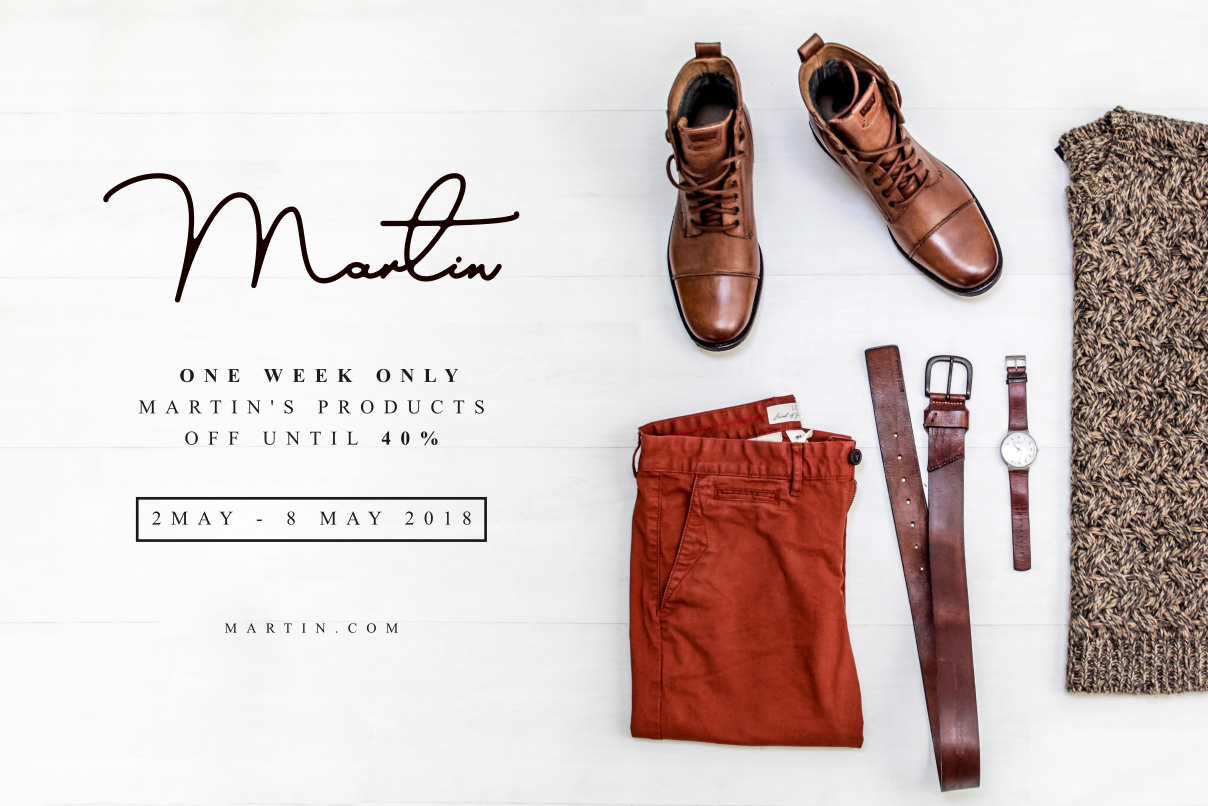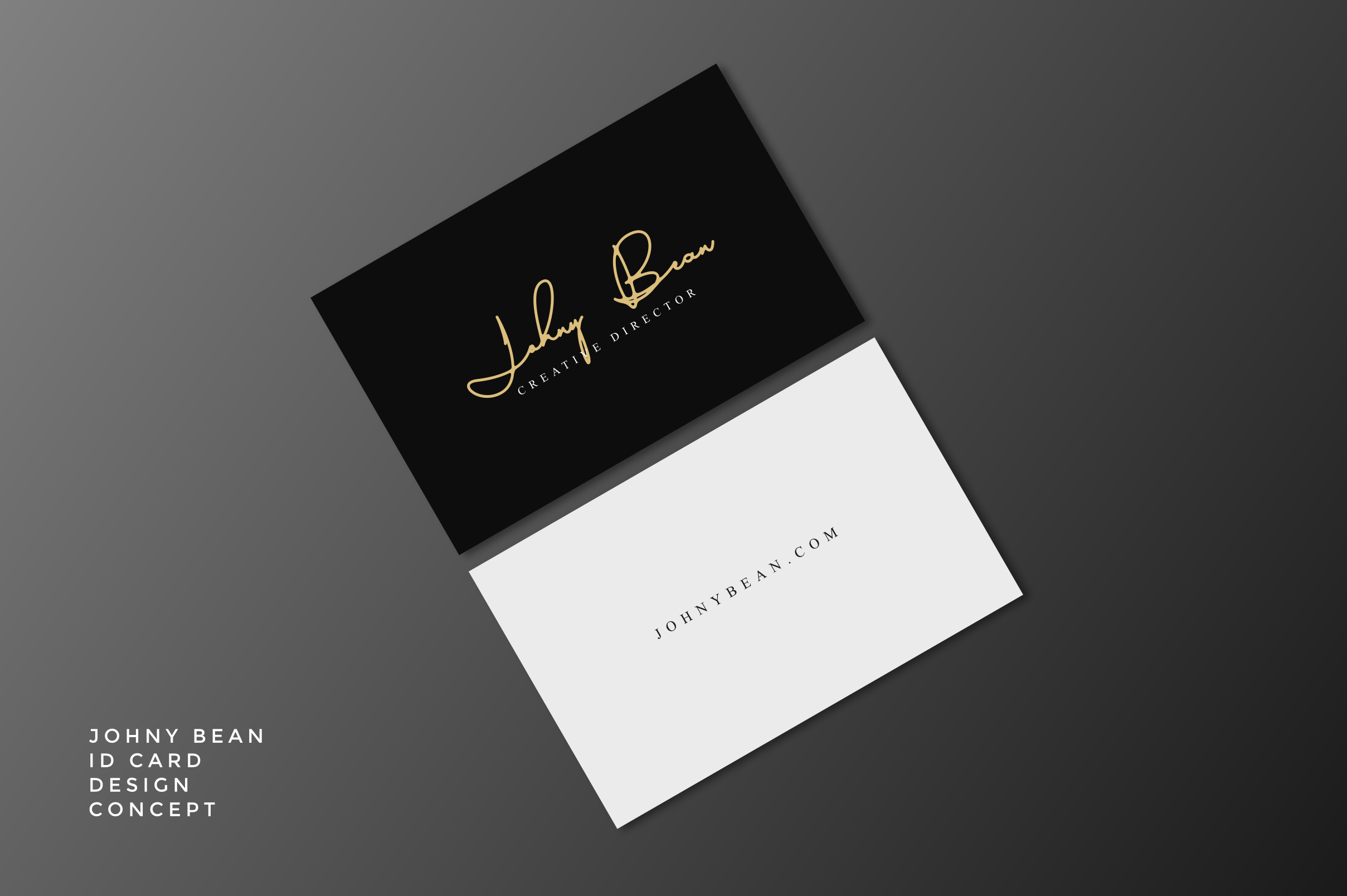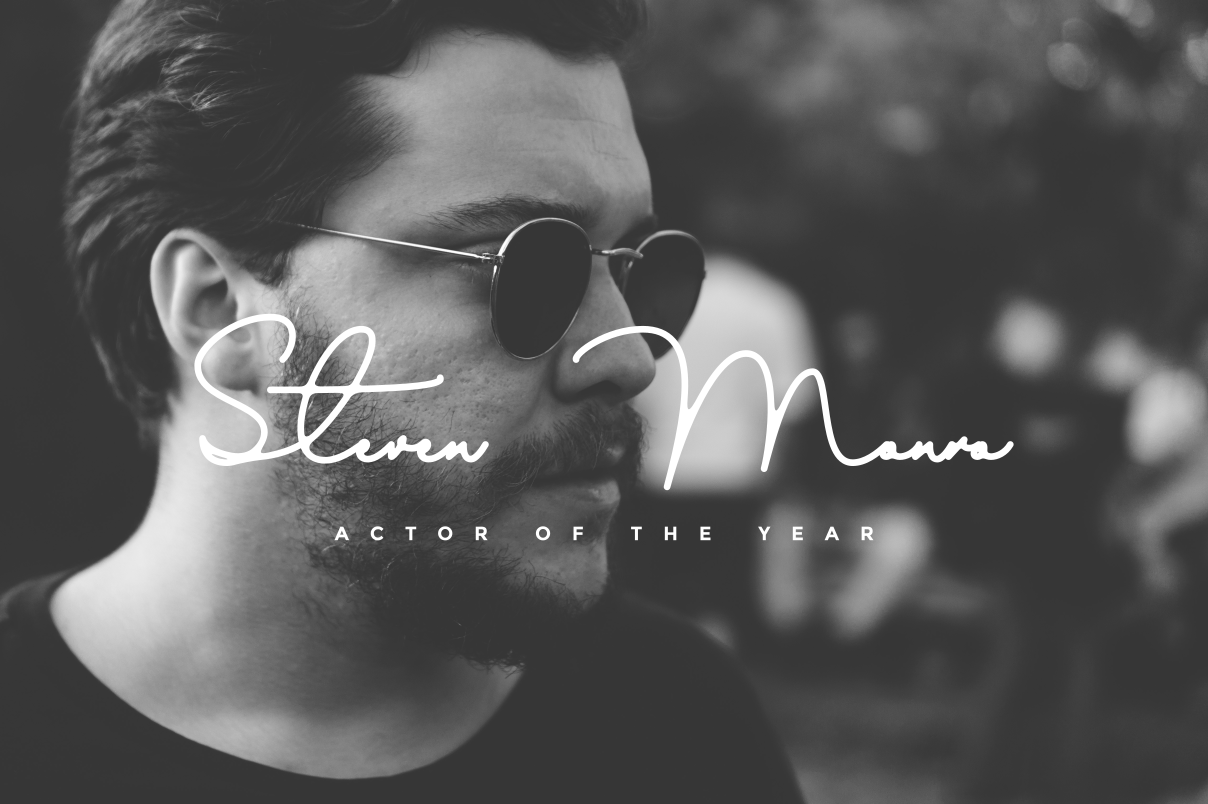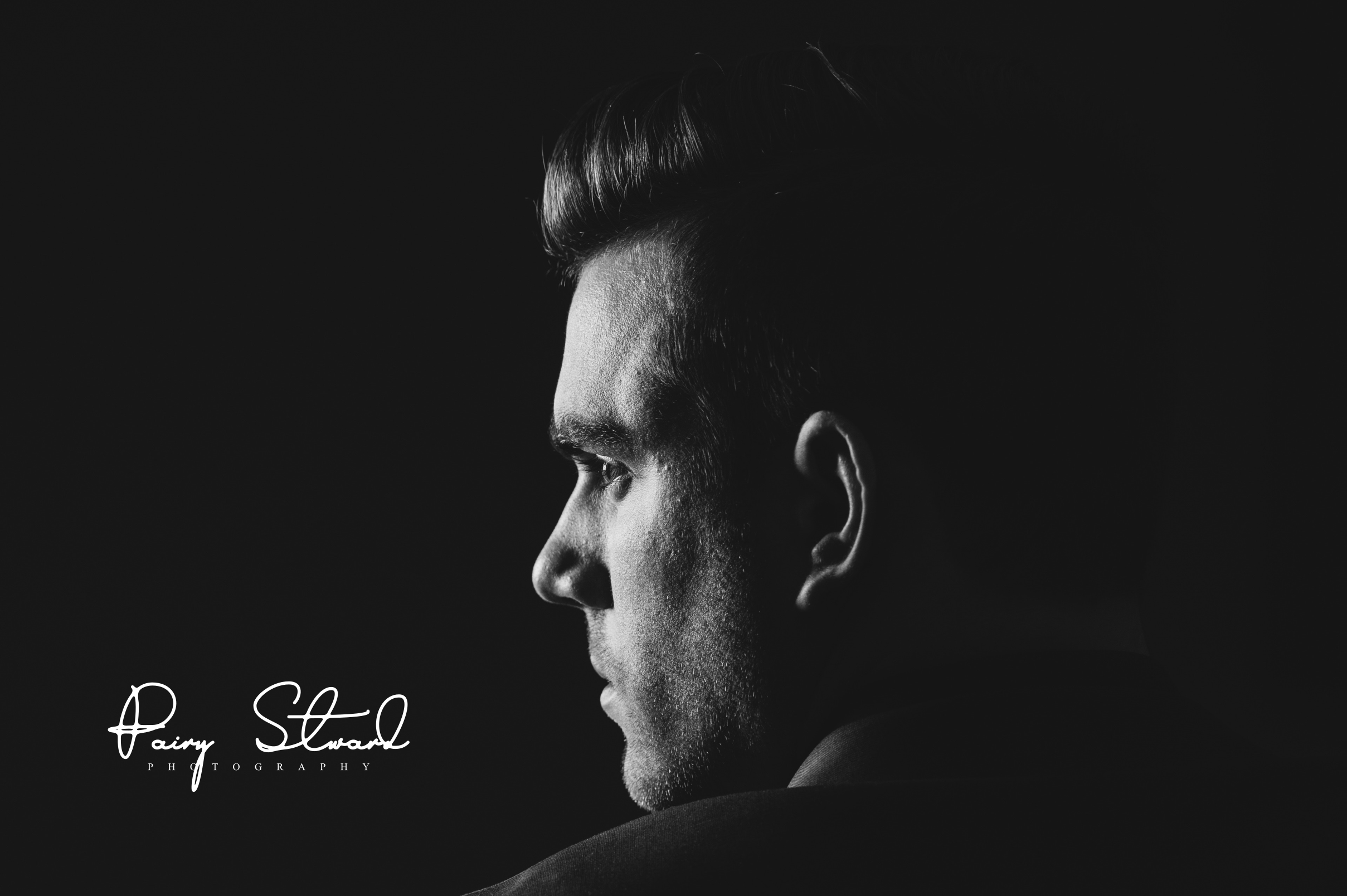
Austin Signs Font
About Austin Signs Font
Austin Signs is a gorgeous signature font, perfect for giving your designs a highly stylish and fashionable vibe. This font is a great option for logotype for creatives, and offers a highly editorial style.